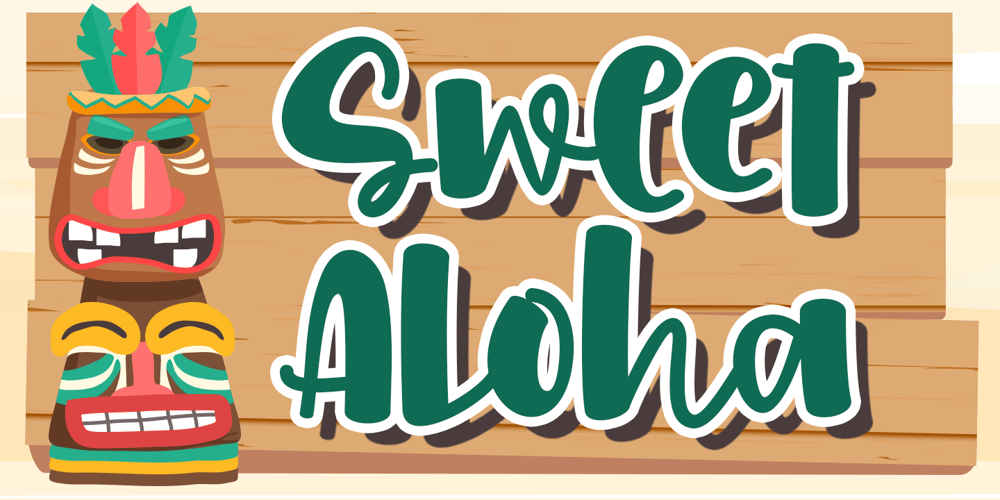
Sweet Aloha
Sweet Aloha font
Sweet Aloha Font Family was designed by Stefani Tri Rosa Setiati Christiana and published by Stefani Letter. Sweet Aloha contains 1 styles and family package options. Sweet Aloha is a cool and fashionable handwritten font. It is defined by smooth curves and is perfect for packaging or editorial designs. but also It’s ideal for branding and decorate your projects. Add this chunky lettered font to your designs and notice how it makes them come alive!. This font is PUA encoded which means you can access all of the cute glyphs with ease! It also features a wealth of including ligatures.